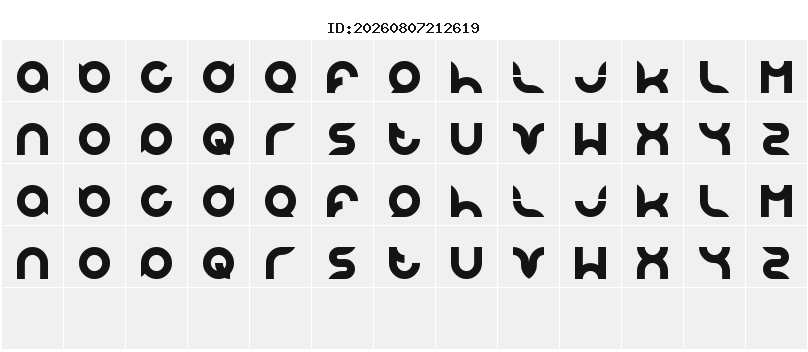
About pandaman.ttf
pandaman.ttf is a modern, elegant sans-serif font designed for ultimate readability and visual harmony. Perfect for branding, headlines, web design, and print materials.